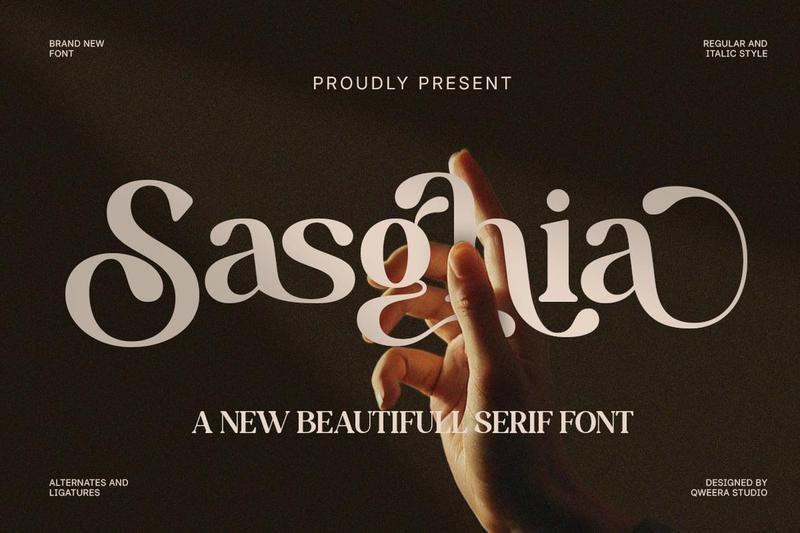
**Sasghia** is a beautiful luxury serif typeface designed to bring elegance, softness, and premium sophistication into modern creative projects. Featuring graceful curves, stylish alternates, and refined ligatures, this font creates a polished typographic presence for high-end design work.
Perfect for luxury branding, beauty packaging, fashion editorials, wedding invitations, boutique identities, cosmetic labels, elegant logos, and premium stationery.
Sasghia blends feminine beauty with modern serif refinement, making it an excellent choice for designers seeking stylish typography with a graceful and luxurious personality.
**Features**
– Uppercase & lowercase
– Alternates & ligatures
– Multilingual support
– Professional kerning
– Regular & Italic
**Perfect For**
Luxury branding, fashion editorials, beauty packaging, wedding invitations, boutique logos, cosmetic branding, premium stationery